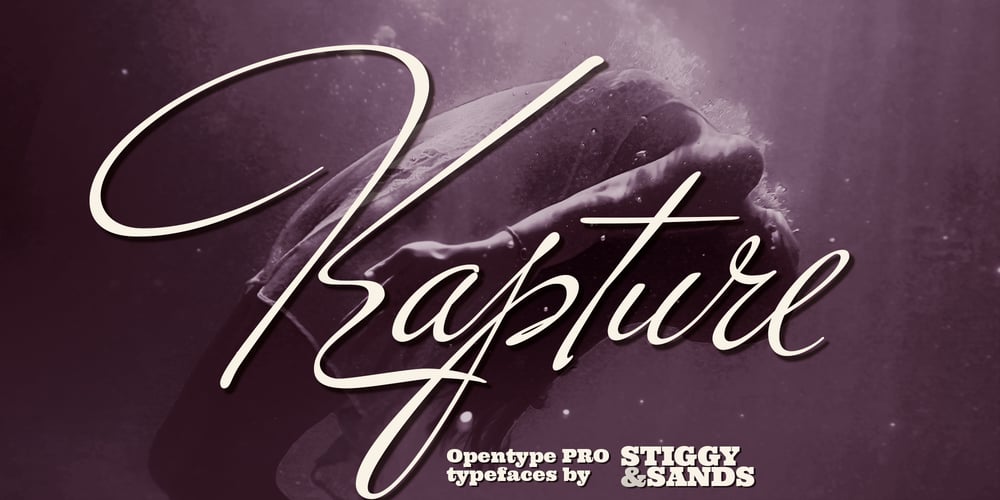
Kapture Font Family was designed by Jim Lyles, Brian J. Bonislawsky and published by Stiggy & Sands. Kapture contains 1 styles and family package options. There are script typefaces that embody sensuality, and our Kapture typeface is now amongst that collection. From its thin weighting to its effortlessly flowing strokes, and a visual rhythm between quick and slow movements, Kapture truly captures a romance in letterforms. Stylistic Alternates offer a change-up set of Capitals, while the Contextual Alternates feature plays with intro and final lowercase letterforms to visually mix things up a bit. Elegant, fashionable, sophisticated, sensual, and celebratory all at once. Kapture is a typestyle that finds itself at home in any design where a refined yet modern script is required. Kapture is loaded with features to give you plenty of customization options: – Stylistic Alternates for a collection of alternate Capitals – Contextual Alternates for alternate starting and ending lowercase letters – 110 Ligatures to make typesetting more dynamic – Ornaments to place before and after words or phrases for even more flair – A Full set of Inferiors and Superiors for Limitless Fractions – Proportional and Oldstyle numeral sets